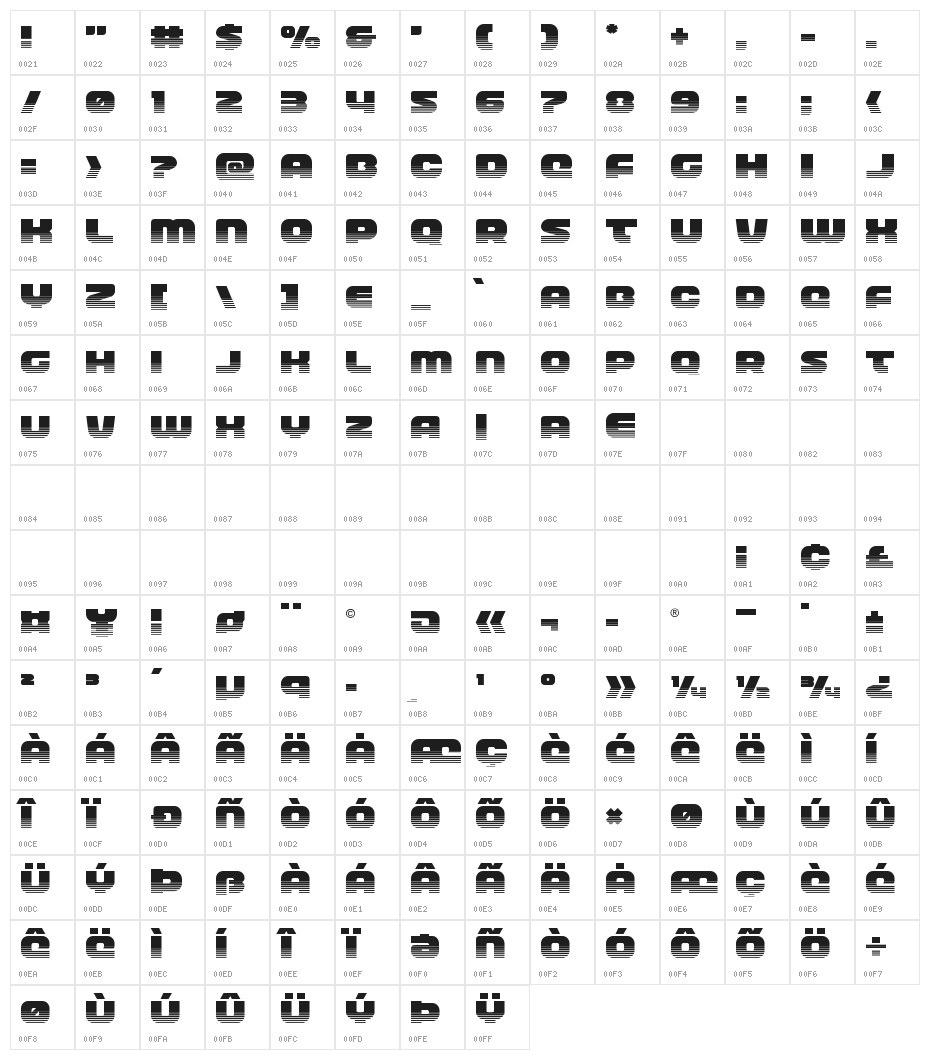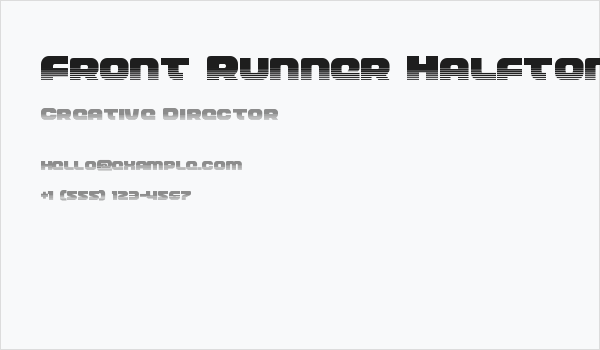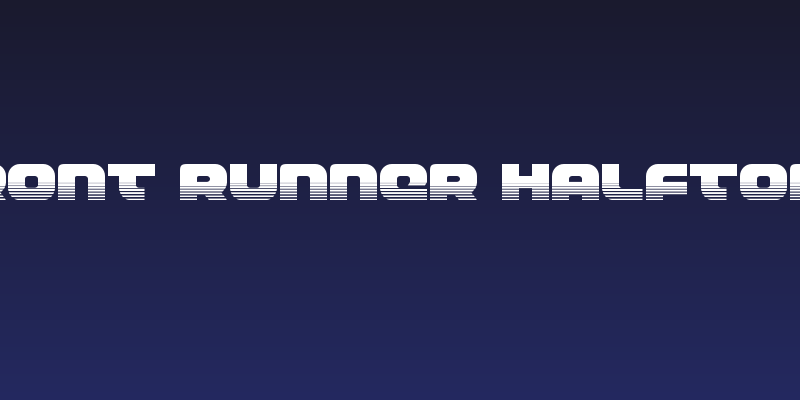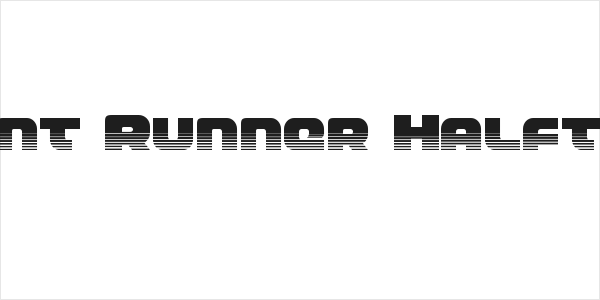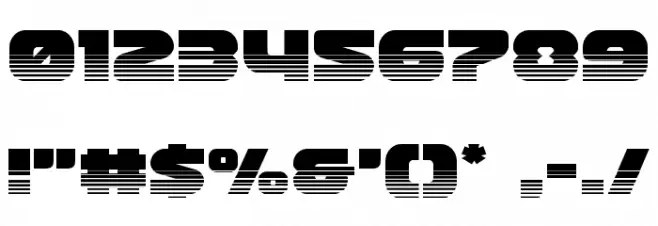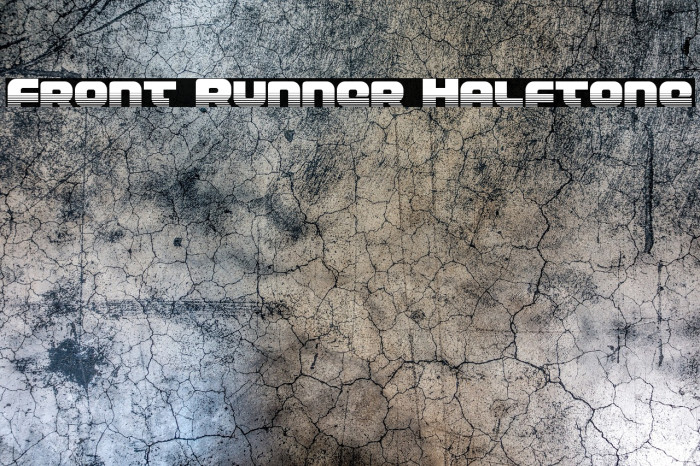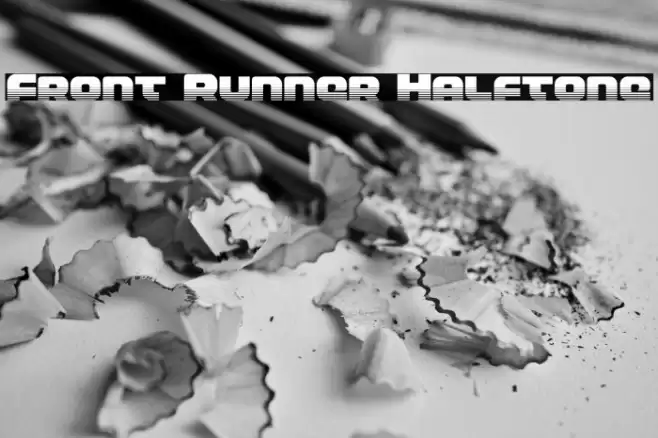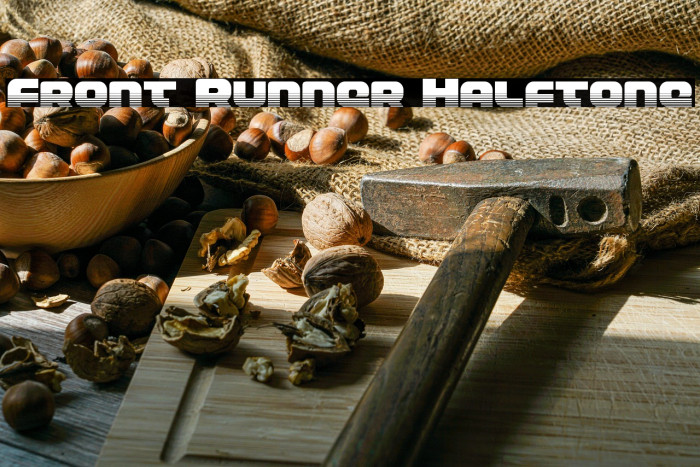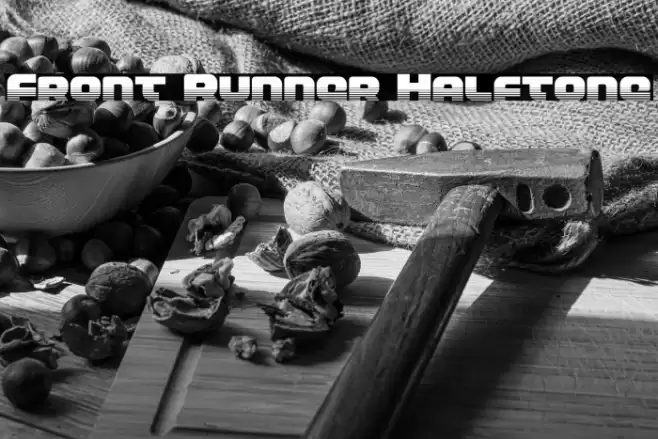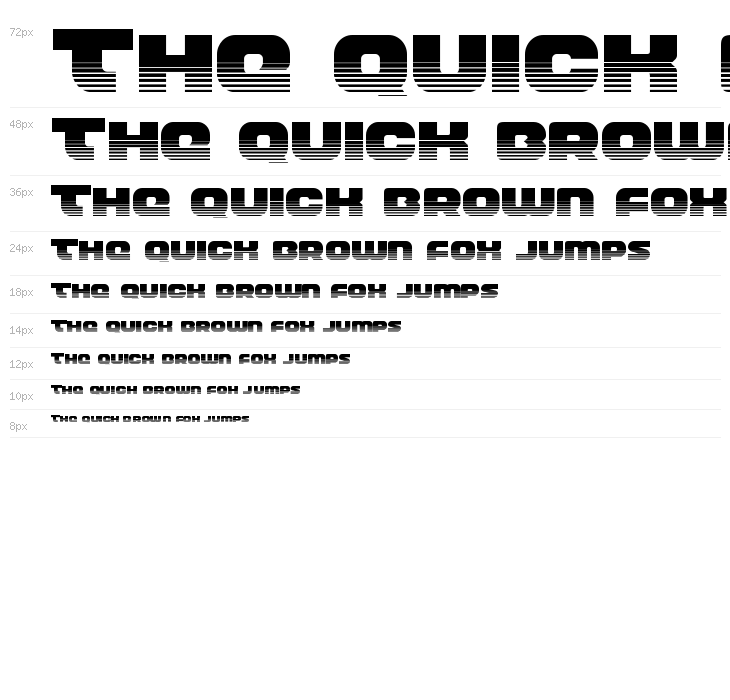
Front Runner Halftone Font
Front Runner Halftone Description
This font features a bold, futuristic design with a halftone effect that creates a sense of movement and depth. The characters are constructed with horizontal lines that vary in thickness, giving it a unique, layered appearance. The uppercase and lowercase letters maintain a consistent style, with rounded edges and a strong geometric structure. The numbers and special characters follow the same design principles, ensuring a cohesive look across all elements. This font is ideal for projects that require a modern and dynamic aesthetic.
| Proposed Projects | Ideal for branding, posters, album covers, and digital media that require a modern, dynamic look. |